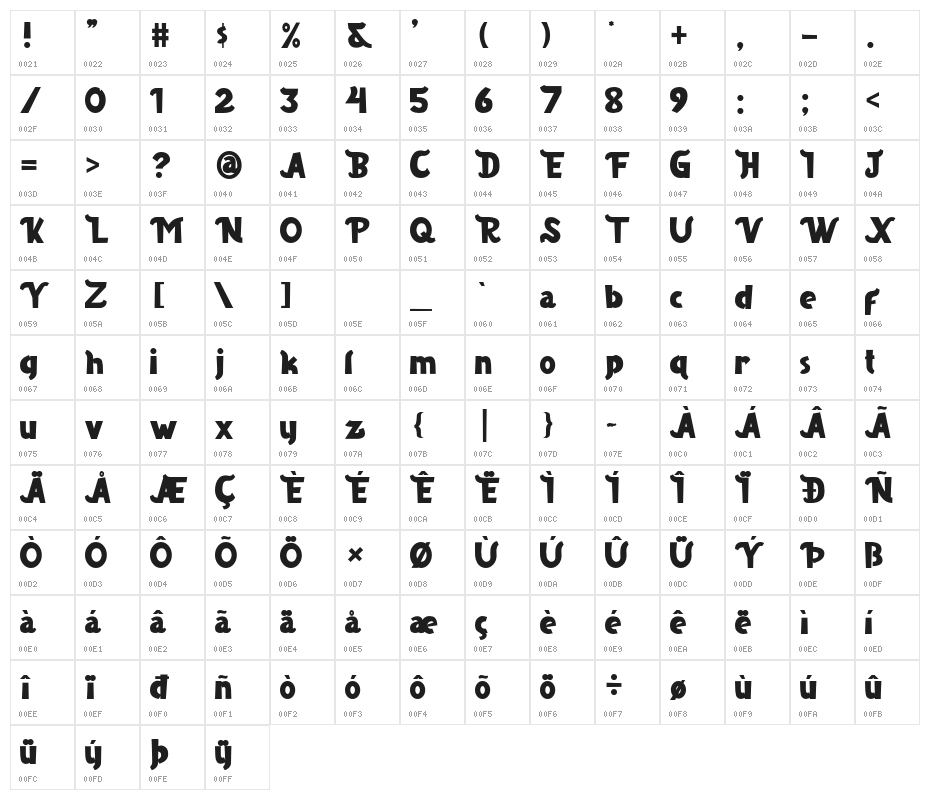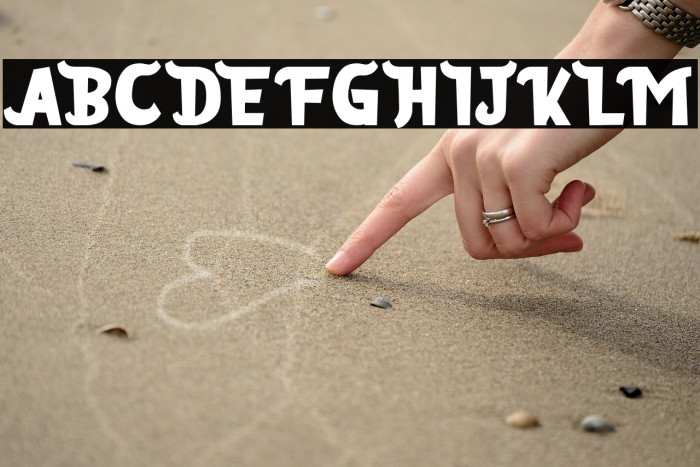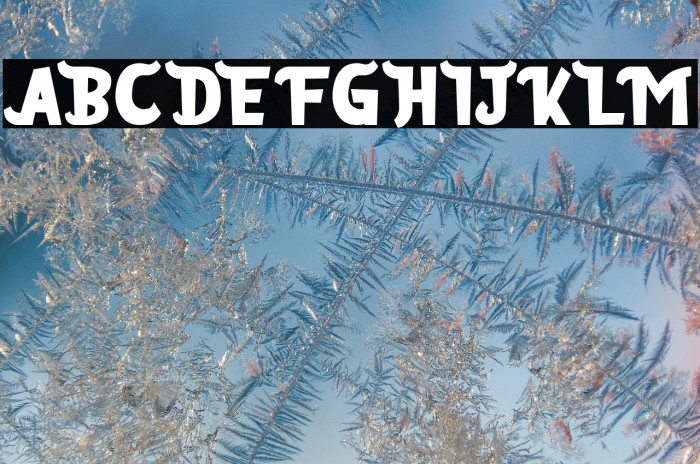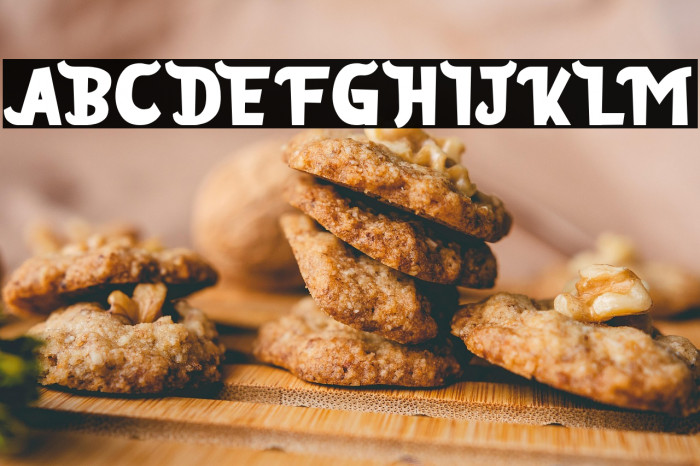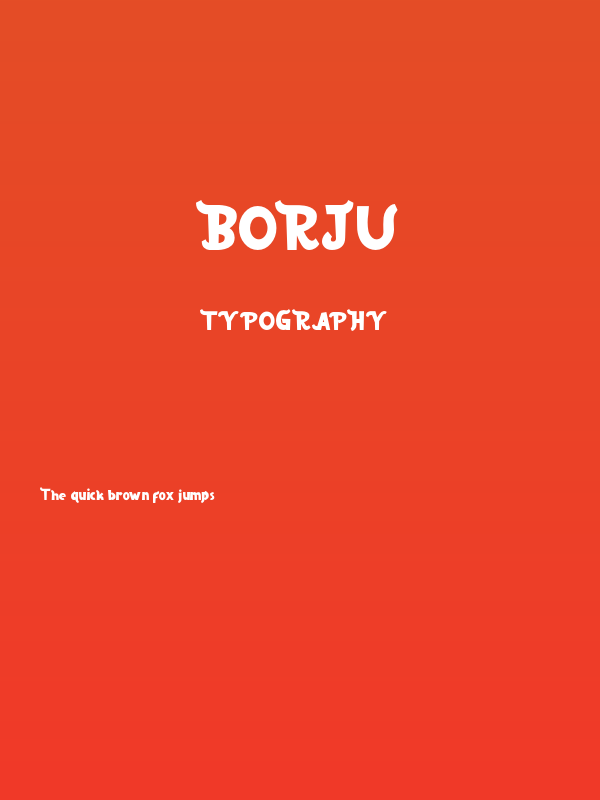
Borju Font
Borju Description
This font features a bold and playful design with a distinct, whimsical flair. The characters have a unique, slightly irregular shape that gives them a hand-drawn appearance. The uppercase letters are bold and commanding, while the lowercase letters maintain a consistent style with a touch of quirkiness. The numbers and special characters follow the same playful theme, making them suitable for creative projects. The overall style is decorative and eye-catching, perfect for adding a fun and lively touch to any design.
| Proposed Projects | Ideal for children's books, playful branding, posters, and creative invitations. |